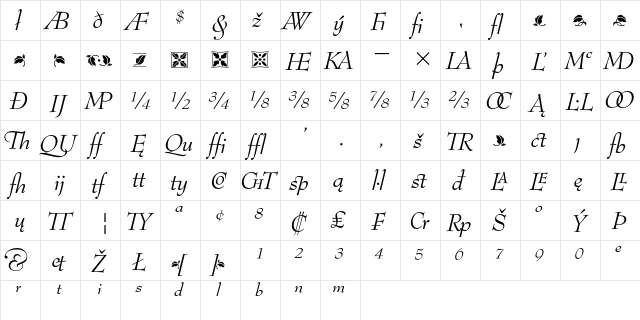
Bernhard Modern Italic Extension Font Preview
Bernhard Modern Italic Extension
Bernhard Modern Italic Extension Font Details
| Style | Italic Extension |
Design Context for Bernhard Modern Typeface
Bernhard Modern takes a measured approach to typography — its balanced proportions and neutral character make it a reliable workhorse for both digital and print work. The dynamic lean of this cut emphasises speed and emphasis in any layout.
Pro Tip: Try Bernhard Modern for annotation and caption copy alongside an upright companion — the contrast in angle creates a dynamic but ordered typographic system.